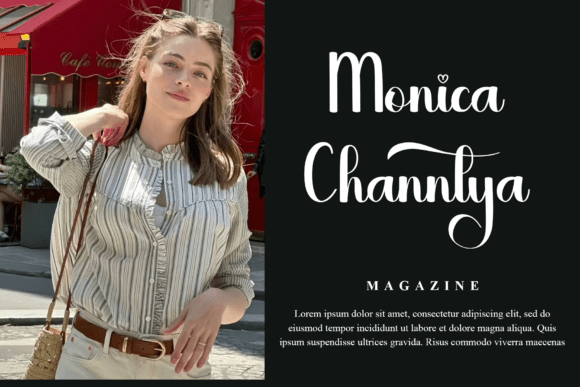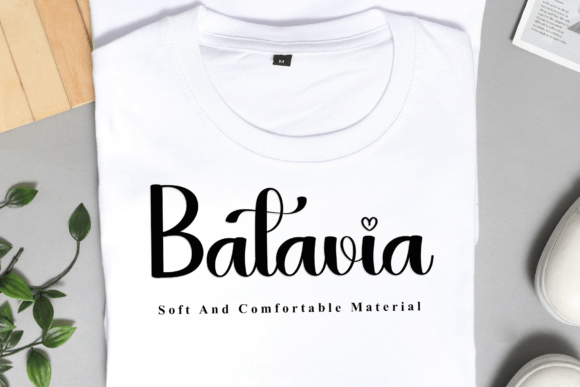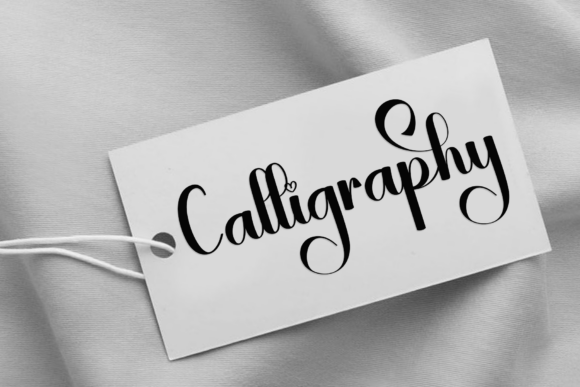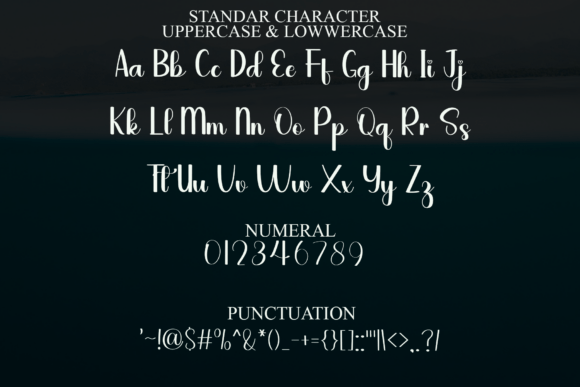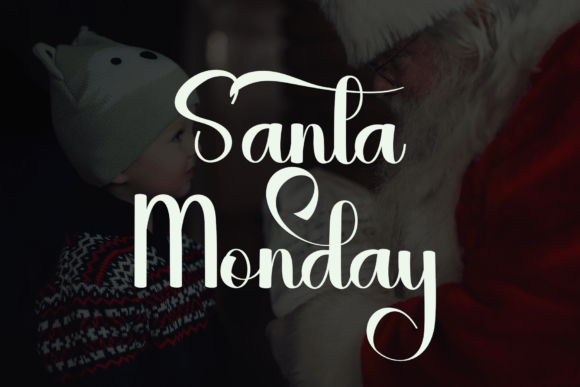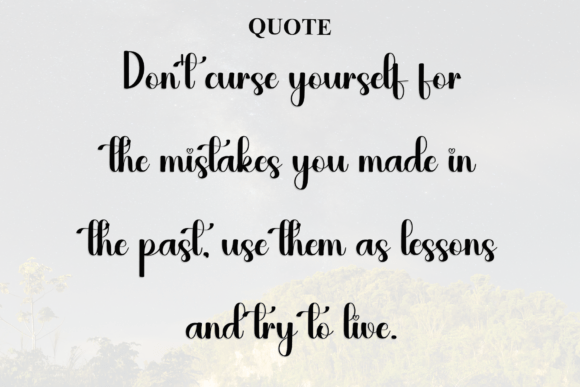
Introducing Black History Font: A Bold and Elegant Handmade Typeface
Are you looking for a font that embodies strength, resilience, and elegance? Look no further than the Black History Font, a bold handmade typeface that beautifully blends power with sophistication. This stunning font is perfect for designers and crafters seeking to create empowering messages, inspirational quotes, branding, and celebration designs that leave a lasting impression.
The Story Behind Black History Font
The Black History Font is more than just a typeface – it’s a statement. Its creation is rooted in the desire to celebrate the rich history and cultural heritage of the African American community. The font’s bold and elegant design pays tribute to the strength and resilience of Black individuals throughout history, while its handmade charm adds a touch of warmth and personality.
Design Features of Black History Font
The Black History Font boasts a range of distinctive design features that set it apart from other typefaces. Its thick strokes and elegant swashes, including heart accents, give it a unique and sophisticated look. The font’s bold identity is balanced by its handcrafted charm, making it perfect for a wide range of design applications.
Thick Strokes and Elegant Swashes
The Black History Font’s thick strokes are a hallmark of its bold and confident design. The font’s elegant swashes add a touch of sophistication and elegance, making it perfect for designs that require a sense of luxury and refinement. The swashes also feature heart accents, which add a playful and whimsical touch to the font.
Heart Accents and Handcrafted Charm
The heart accents in the Black History Font are a thoughtful touch that adds a sense of warmth and personality to the font. The font’s handcrafted charm is evident in its subtle imperfections and unique character variations, which give it a human and approachable feel.
Uses for Black History Font
The Black History Font is a versatile typeface that can be used for a wide range of design applications. Here are some ideas to get you started:
Empowering Messages and Inspirational Quotes
The Black History Font is perfect for creating empowering messages and inspirational quotes that motivate and uplift. Its bold and elegant design makes it ideal for social media graphics, posters, and flyers that require a sense of confidence and authority.
Branding and Logo Design
The Black History Font is also well-suited for branding and logo design. Its unique and sophisticated design makes it perfect for businesses and organizations seeking to establish a strong and memorable brand identity.
Celebration Designs and Event Materials
The Black History Font is a great choice for celebration designs and event materials, such as invitations, programs, and flyers. Its elegant swashes and heart accents add a touch of sophistication and whimsy to any design.
Why Choose Black History Font?
So why choose the Black History Font for your next design project? Here are just a few reasons:
Unique and Memorable Design
The Black History Font boasts a unique and memorable design that will set your project apart from the crowd. Its bold and elegant design makes it perfect for designs that require a sense of confidence and authority.
Versatile and Adaptable
The Black History Font is a versatile typeface that can be used for a wide range of design applications. Its adaptability makes it perfect for designers and crafters seeking a font that can be used across multiple projects.
Handcrafted Charm and Character
The Black History Font’s handcrafted charm and character make it a joy to work with. Its subtle imperfections and unique character variations give it a human and approachable feel that will add a touch of warmth and personality to any design.
Font Name Black History Font
Author K_IN Studio
In conclusion, the Black History Font is a bold and elegant handmade typeface that is perfect for designers and crafters seeking to create empowering messages, inspirational quotes, branding, and celebration designs. Its unique and sophisticated design, combined with its handcrafted charm and character, make it a versatile and memorable font that will elevate any design project.